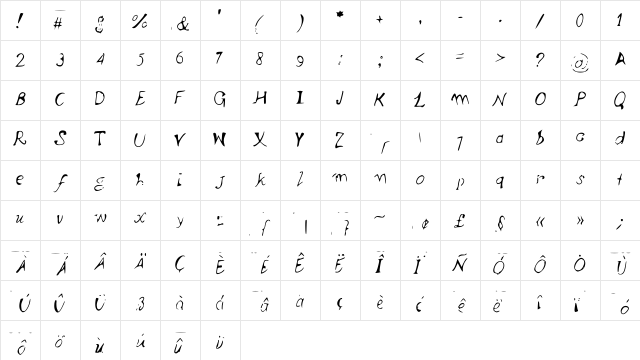
Argento_e_Ber__lio Medium Free Font
Argento_e_Ber__lio Medium
Complete Argento_e_Ber__lio Medium glyph index. Displaying only characters natively supported by Argento_e_Ber__lio Medium font.
Design Context for Argento_e_Ber__lio
Argento_e_Ber__lio is a composed and adaptable typeface that performs quietly and consistently across a wide range of design contexts.